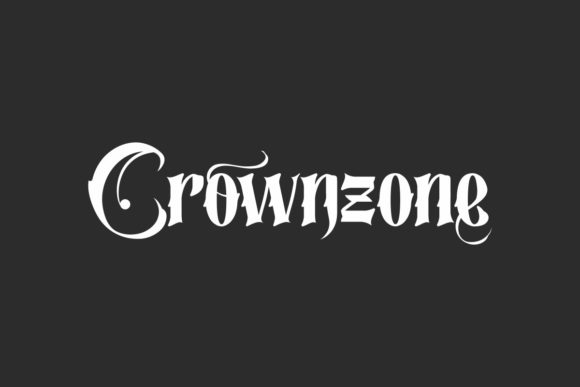
Behold, the enchanting Crownzone Font, a captivating creation from Vintype, awaits your discovery. This remarkable font, hailing from the majestic realm of gothic blackletter scripts, beckons you to unleash your creativity upon a boundless canvas of artistic expression. With its striking presence, Crownzone is poised to transform your designs into masterpieces that speak volumes.
Visualize the allure of your children's invitations adorned with Crownzone's whimsical charm, captivating young hearts with its playful elegance. Imagine the awe-inspiring impact of logos and branding etched with this font's timeless sophistication, leaving an indelible mark on the minds of all who encounter them. Whether you're a talented artist, a musical maestro, a fashion icon, or a visionary entrepreneur, Crownzone is your artistic ally, ready to elevate your creations to unprecedented heights.
Journey through a myriad of design possibilities, allowing Crownzone to guide you. Its versatility knows no bounds, effortlessly adapting to diverse projects like signage, quotes, and performances, adding an air of distinction to each endeavor. With Crownzone as your creative companion, you'll effortlessly craft designs that resonate with your audience, leaving them spellbound by your artistic prowess.
The PUA encoding embedded within Crownzone unlocks a treasure trove of glyphs and swashes, empowering you to effortlessly incorporate intricate details and flourishes into your designs. Unleash your imagination, explore the depths of your creativity, and let Crownzone be your artistic compass, leading you to design destinations you never thought possible.